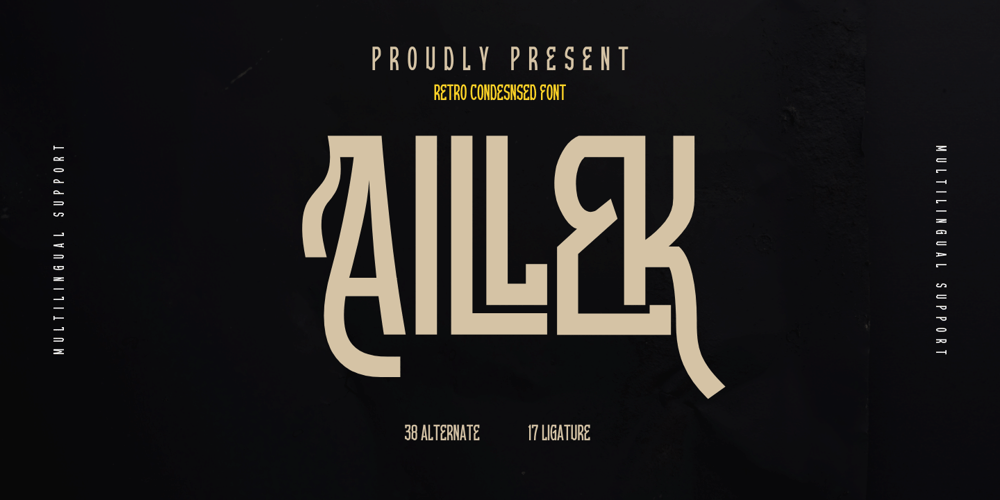
Aillek Font Family was designed by Rozikan and published by Twinletter. Aillek contains 1 styles and family package options. Introducing Aillek, a retro-condensed font with multilingual support and a distinctive look that will enhance any project. Aillek lends a touch of retro charm to any design with its lofty letterforms and alternate characters. Your design becomes more dynamic and interesting thanks to its ligatures options.Aillek is ideal for producing vintage flyers, logos in retro style, nostalgic social media graphics, and more. It is perfect for branding initiatives, packaging design, book covers, and more due to its condensed letterforms. It is adaptable for any project that needs to reach a large audience thanks to its multilingual support.Aillek is a must-have for any designer, marketer, or anyone looking to add a dash of nostalgia to their work because of its distinctive design and features. It’s ideal for those who want to add a touch of nostalgia to their designs as well as for those who want to create designs that evoke nostalgia and vintage aesthetics.Make Aillek your go-to font for all your retro-condensed design needs by taking advantage of this opportunity. Don’t wait, get this special font right away, and start making designs that will be remembered.What’s Included :- File font- All glyphs Iso Latin 1- Alternate, Ligature- Simple installations- We highly recommend using a program that supports OpenType features and Glyphs panels like many Adobe apps and Corel Draw so that you can see and access all Glyph variations.- PUA Encoded Characters – Fully accessible without additional design software.- Fonts include Multilingual support